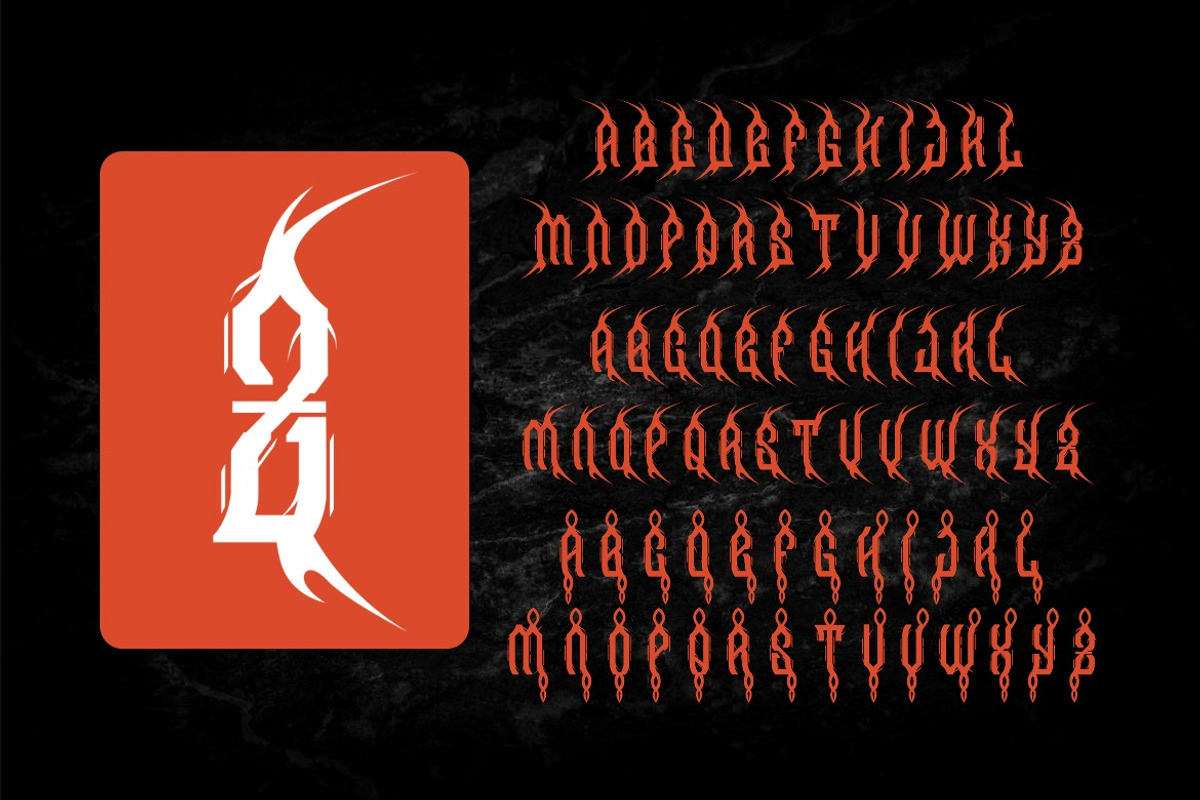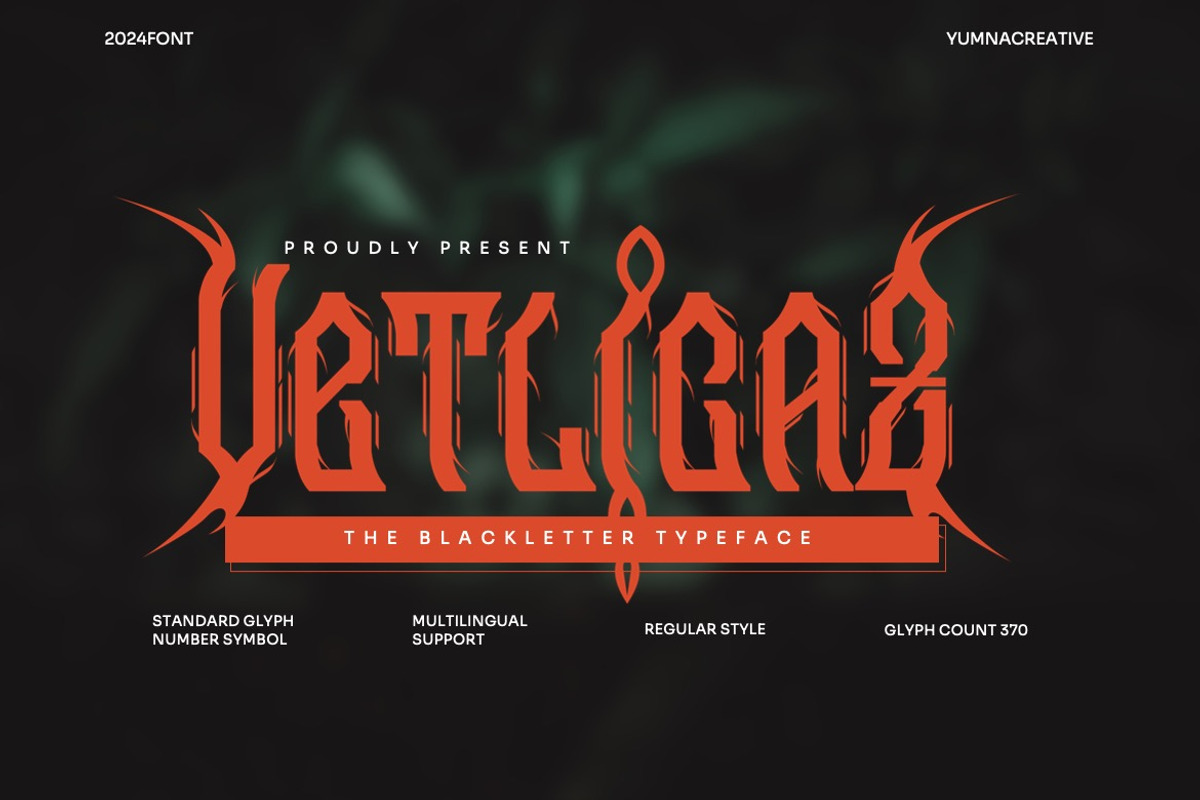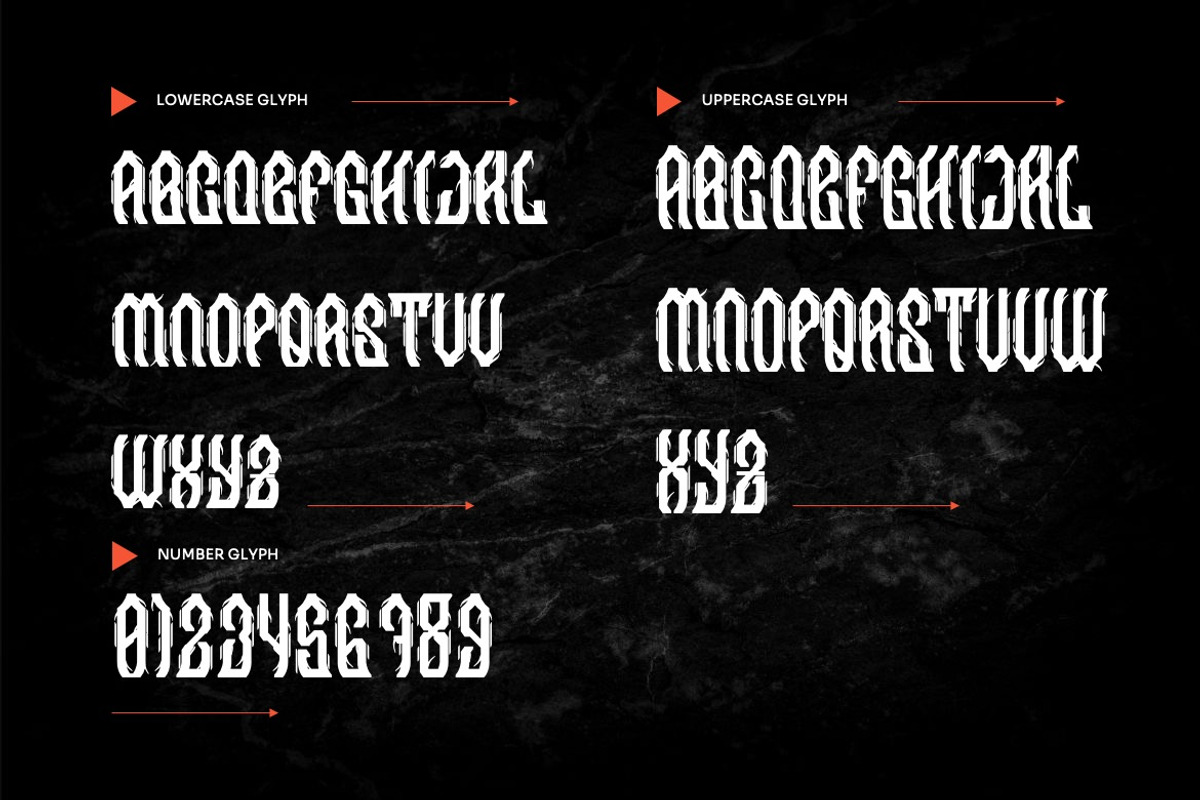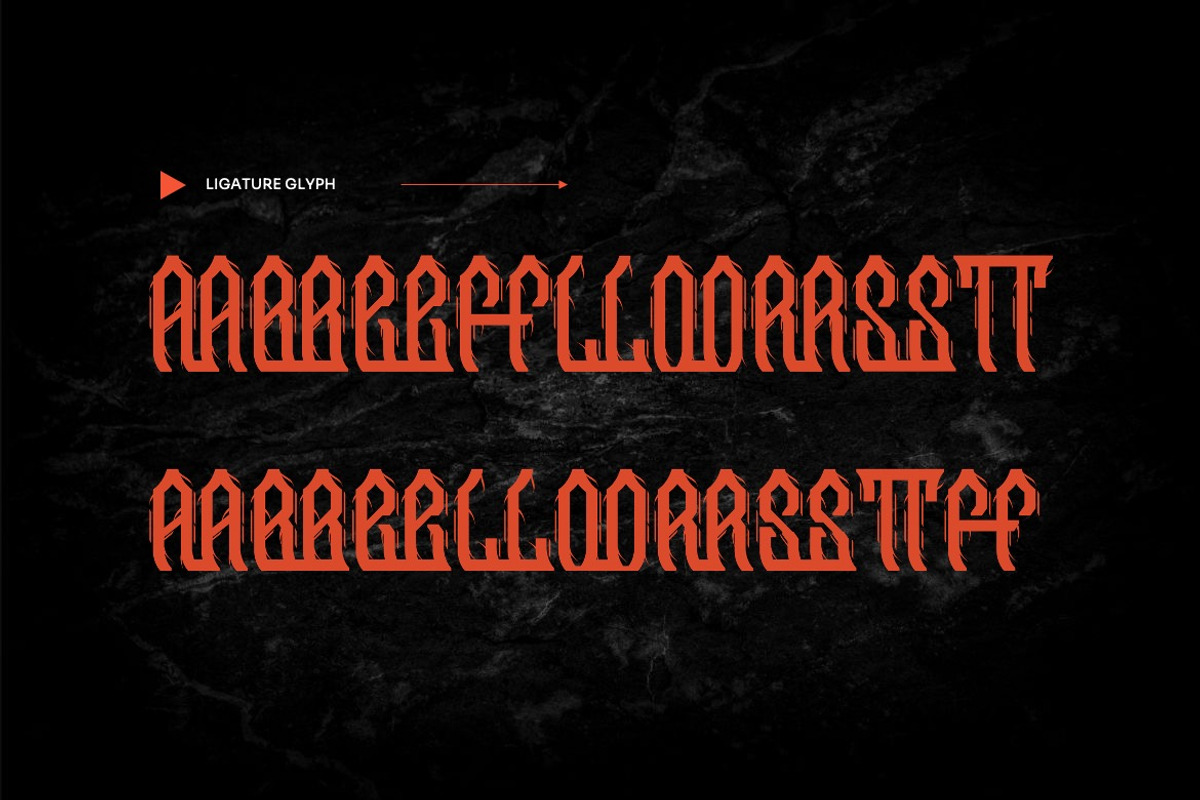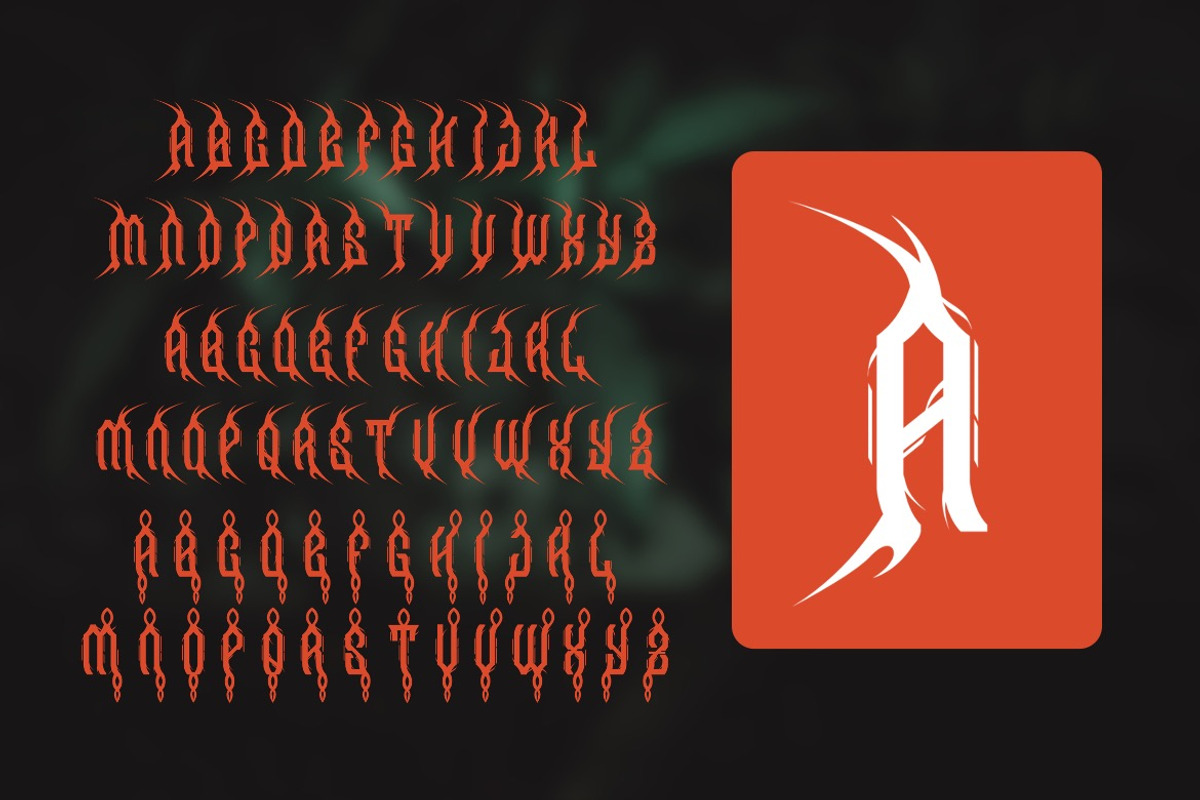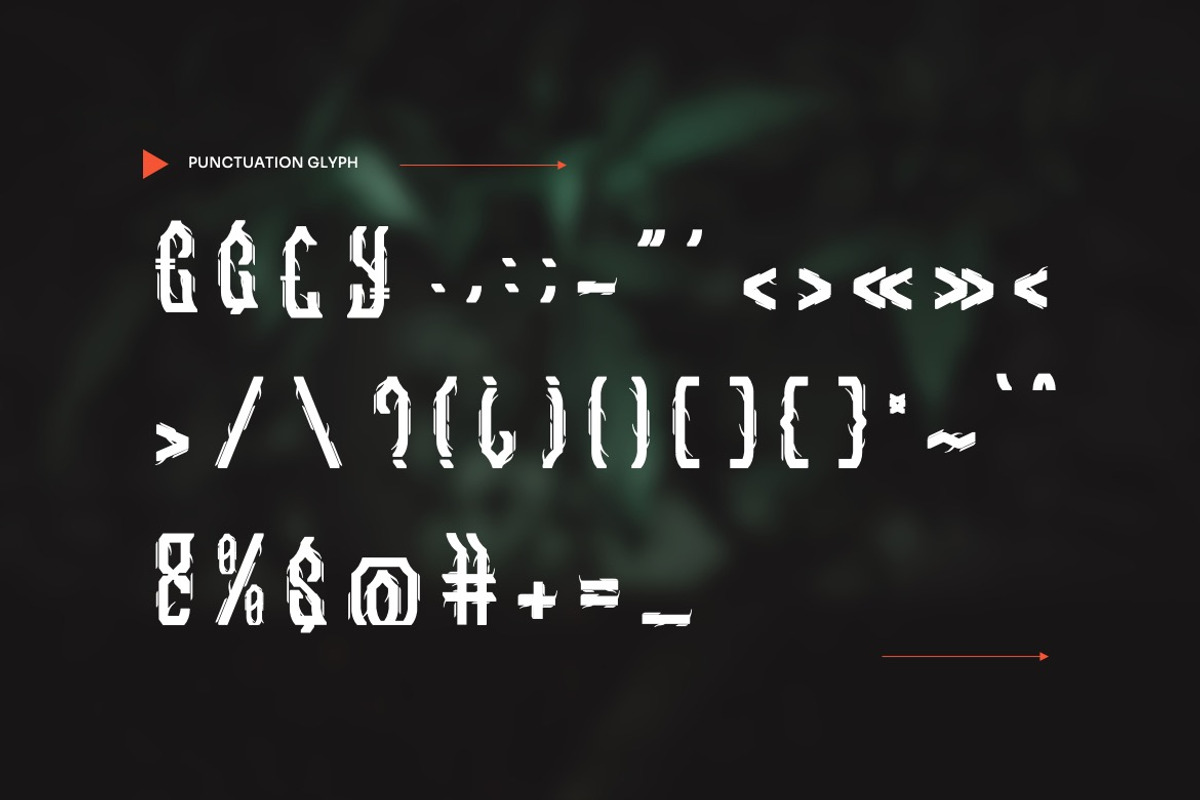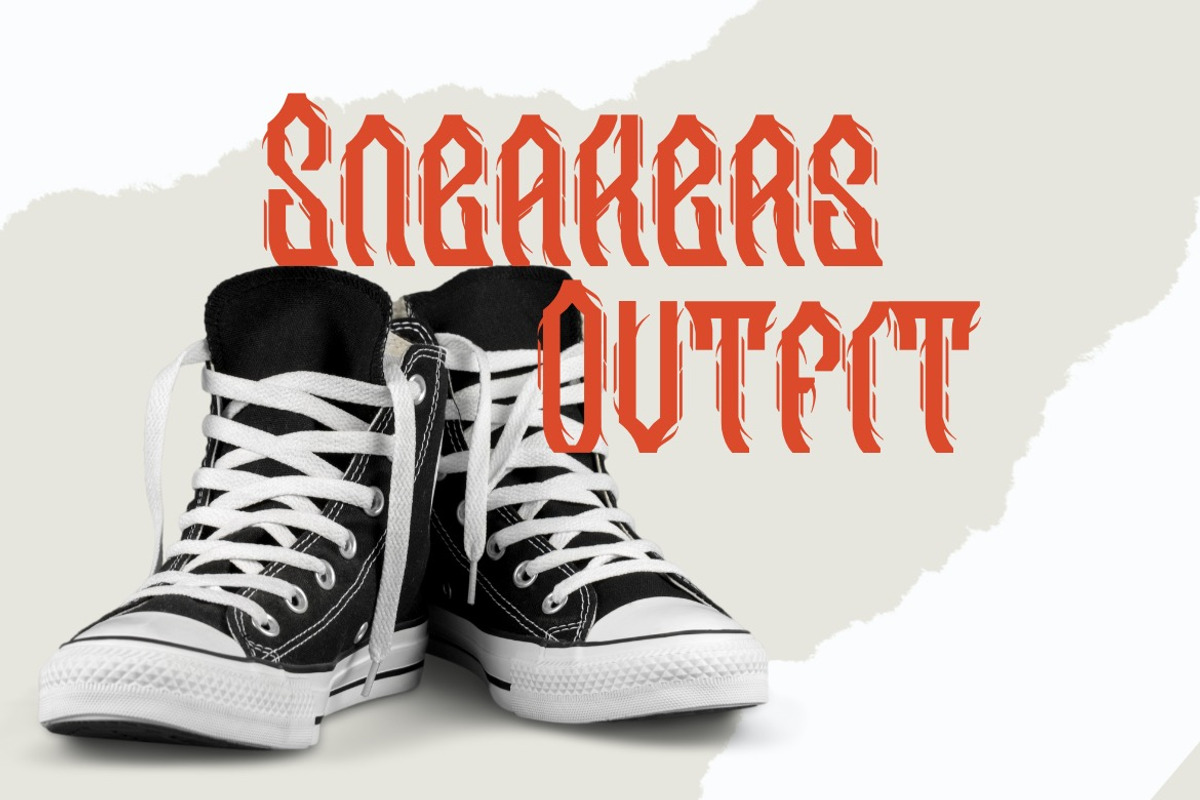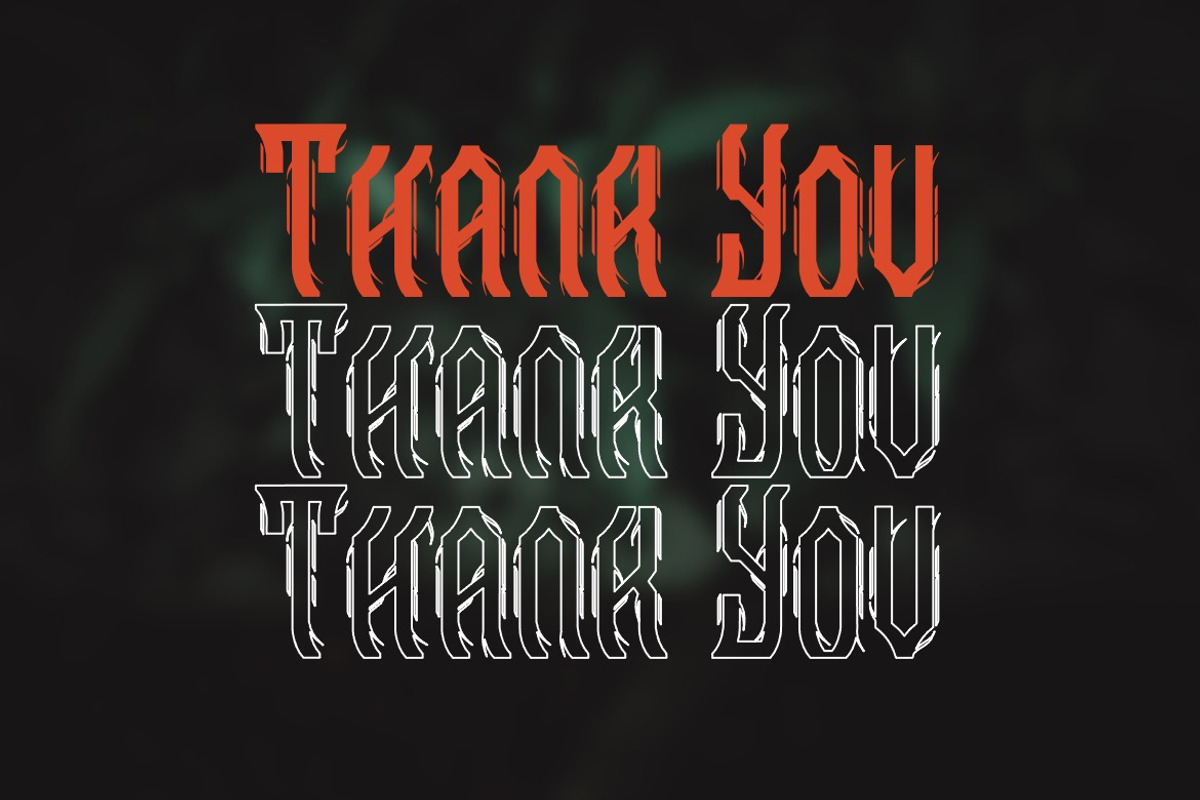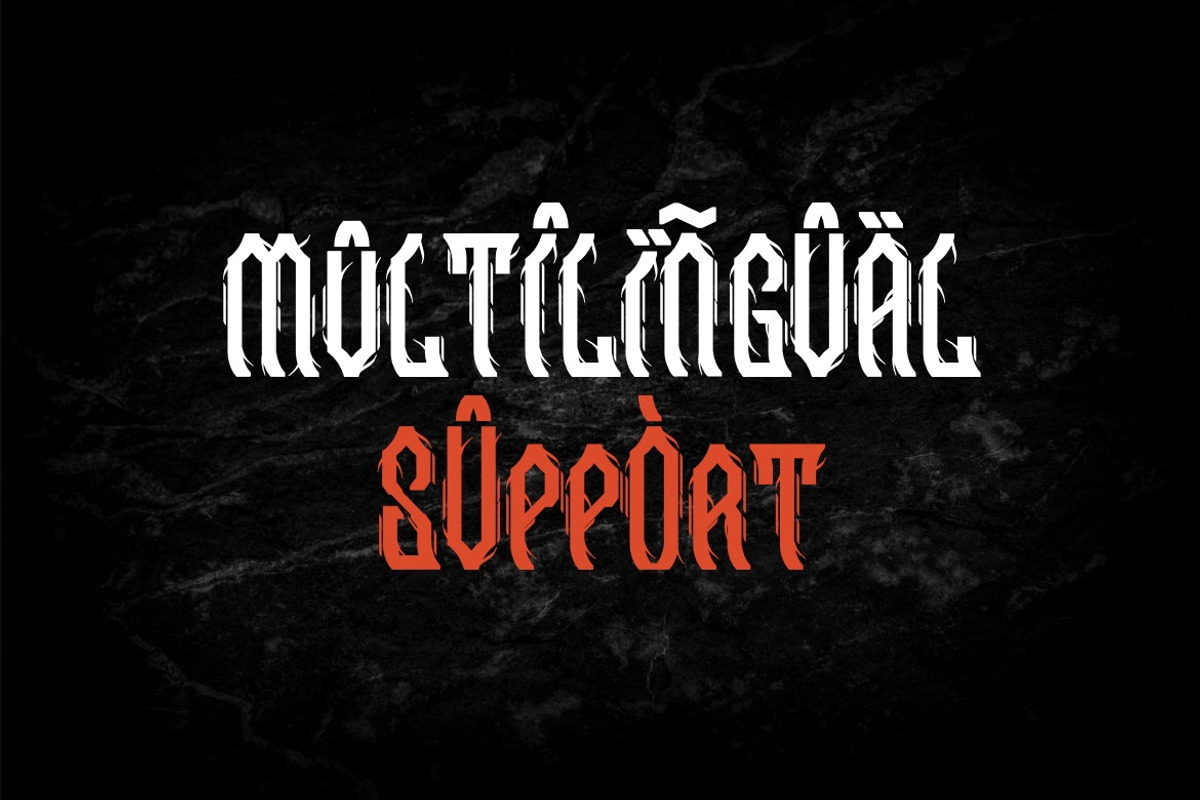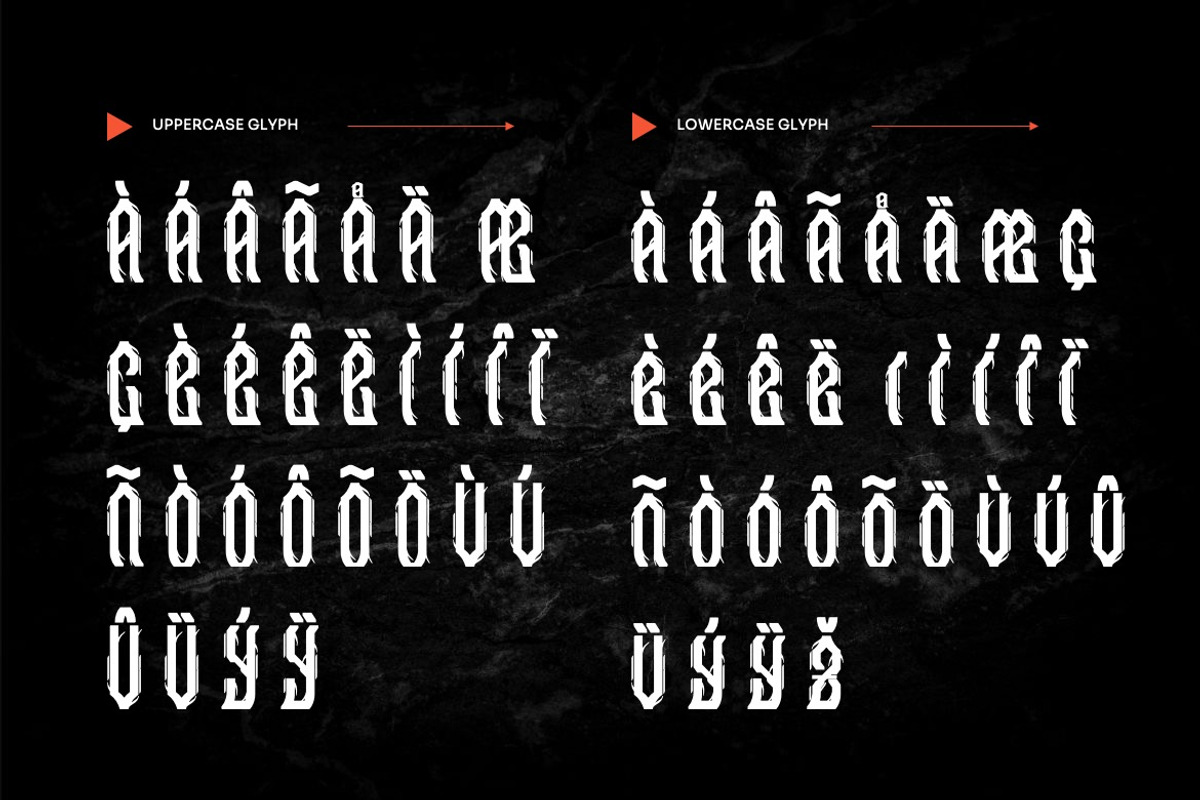
Vetlicaz - Blackletter Font
Introducing Vetlicaz - Blackletter Font
Vetlicaz - Blackletter Font is a bold blackletter fraktur display font that merges traditional Gothic aesthetics with modern impact. Its intricate letterforms feature sharp angles, dramatic strokes, and striking contrasts, embodying strength, authority, and historical charm. The bold weight enhances its commanding presence, making it ideal for designs that demand attention and sophistication.
• Ligature and Alternate